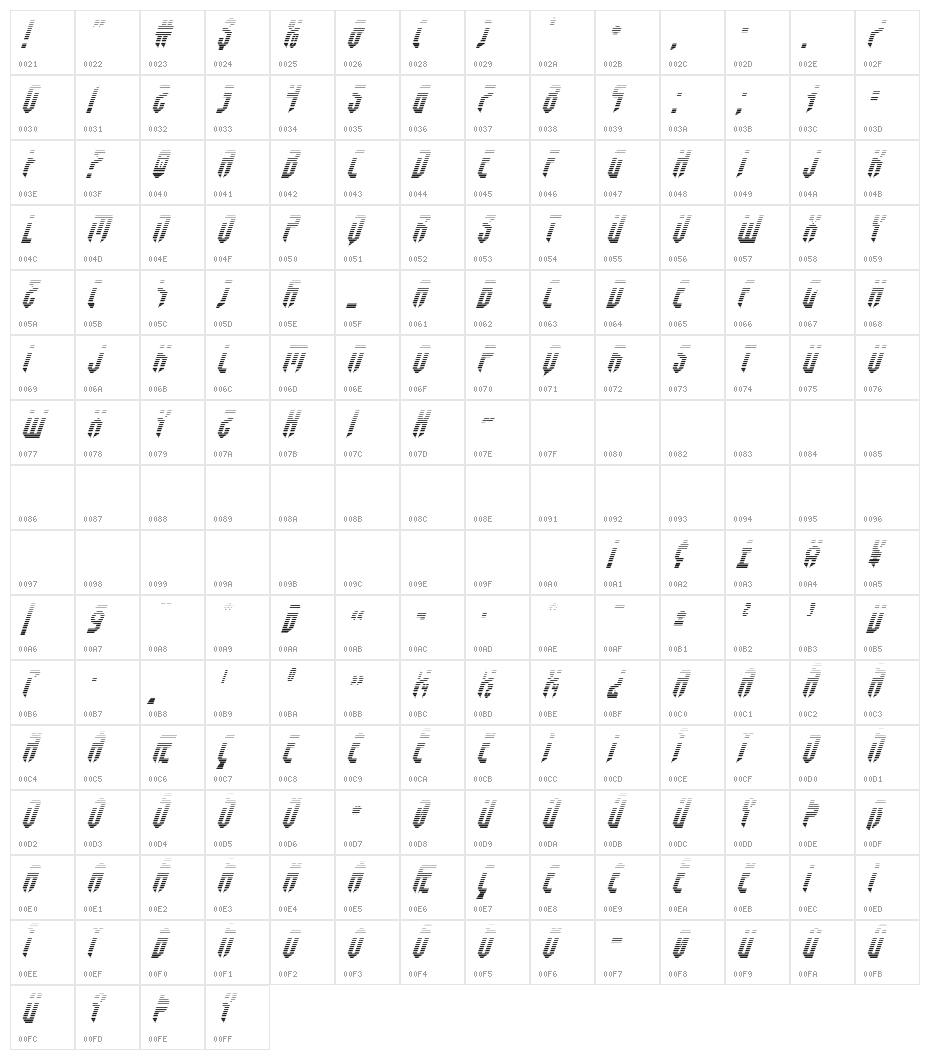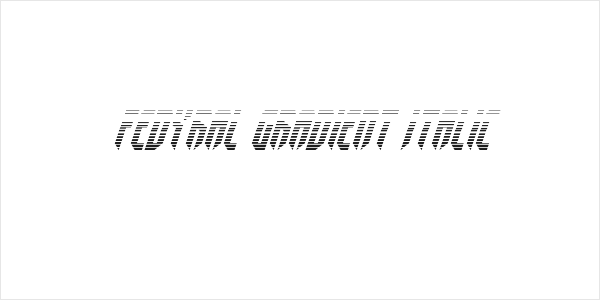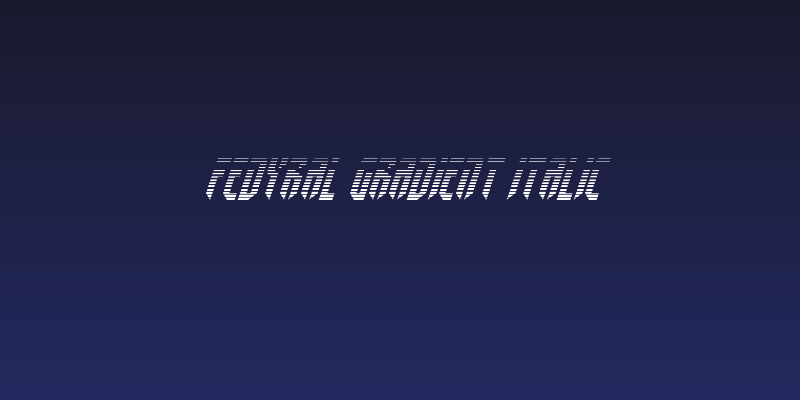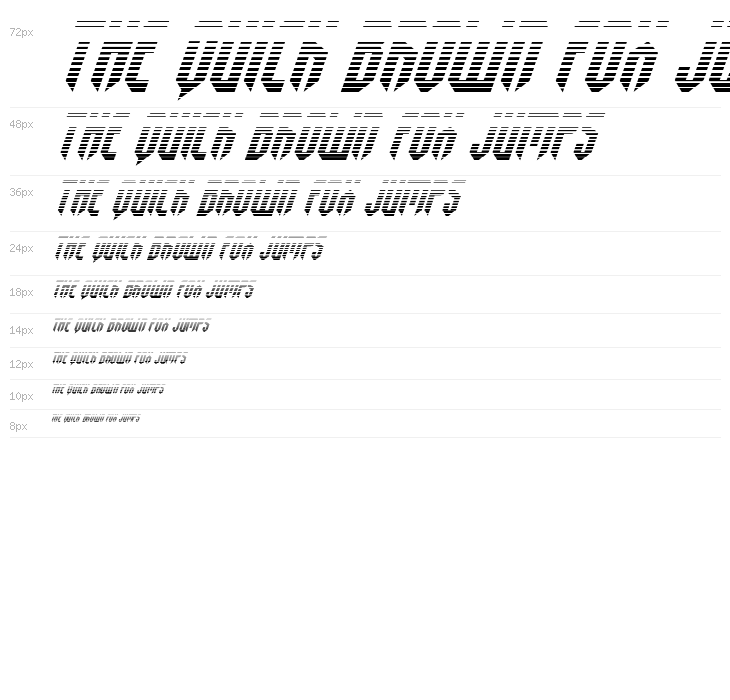
Fedyral Gradient Italic Font
Fedyral Gradient Italic Description
This font features a bold, italicized style with a unique gradient effect that gives it a futuristic and dynamic appearance. The characters are constructed with horizontal lines that create a sense of movement and depth. The uppercase and lowercase letters maintain a consistent slant, enhancing the italicized look. The numbers and special characters follow the same design principles, ensuring uniformity across all glyphs. The overall aesthetic is modern and eye-catching, making it suitable for projects that require a strong visual impact.
| Proposed Projects | Ideal for sci-fi themed designs, tech branding, video game titles, and modern posters. |